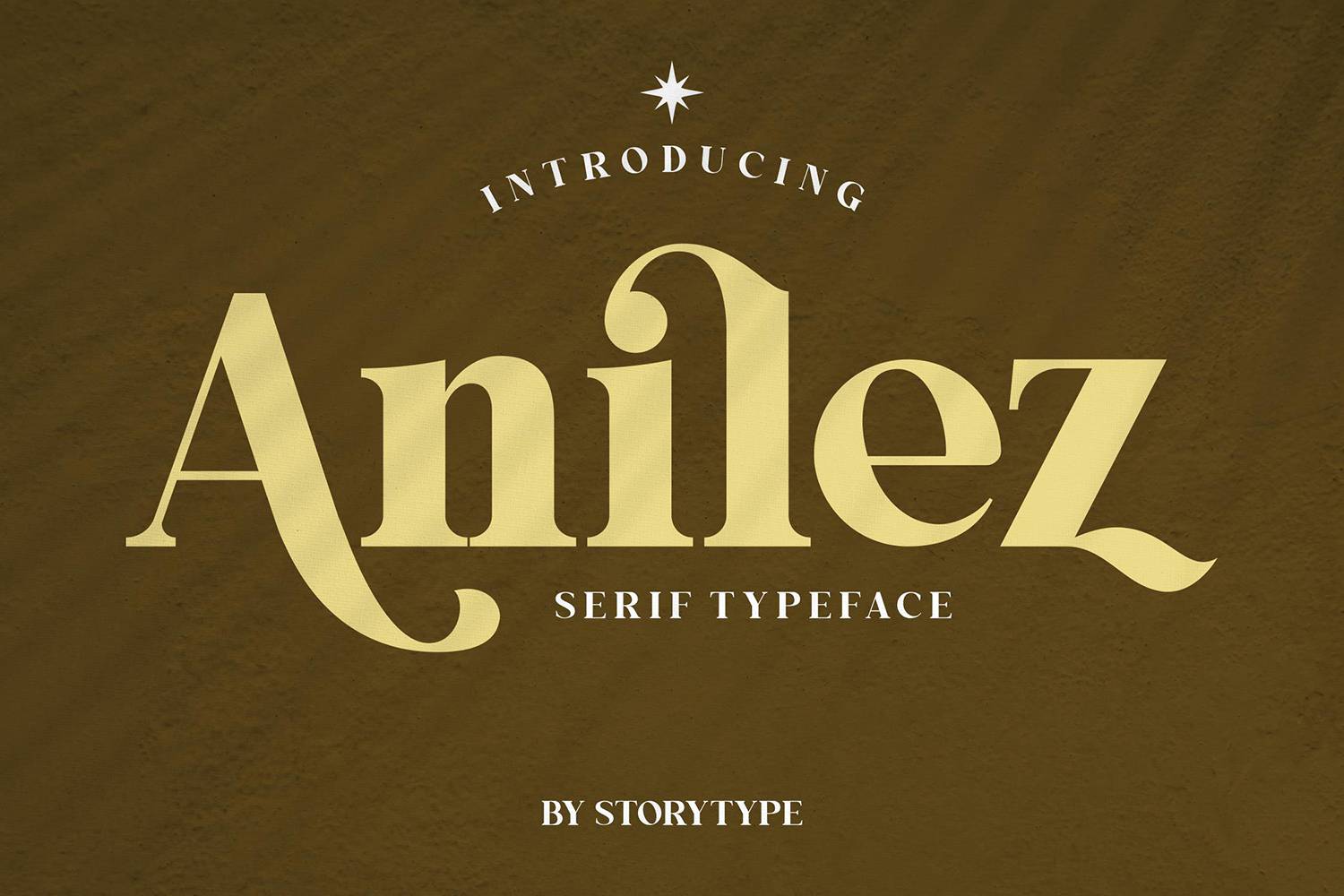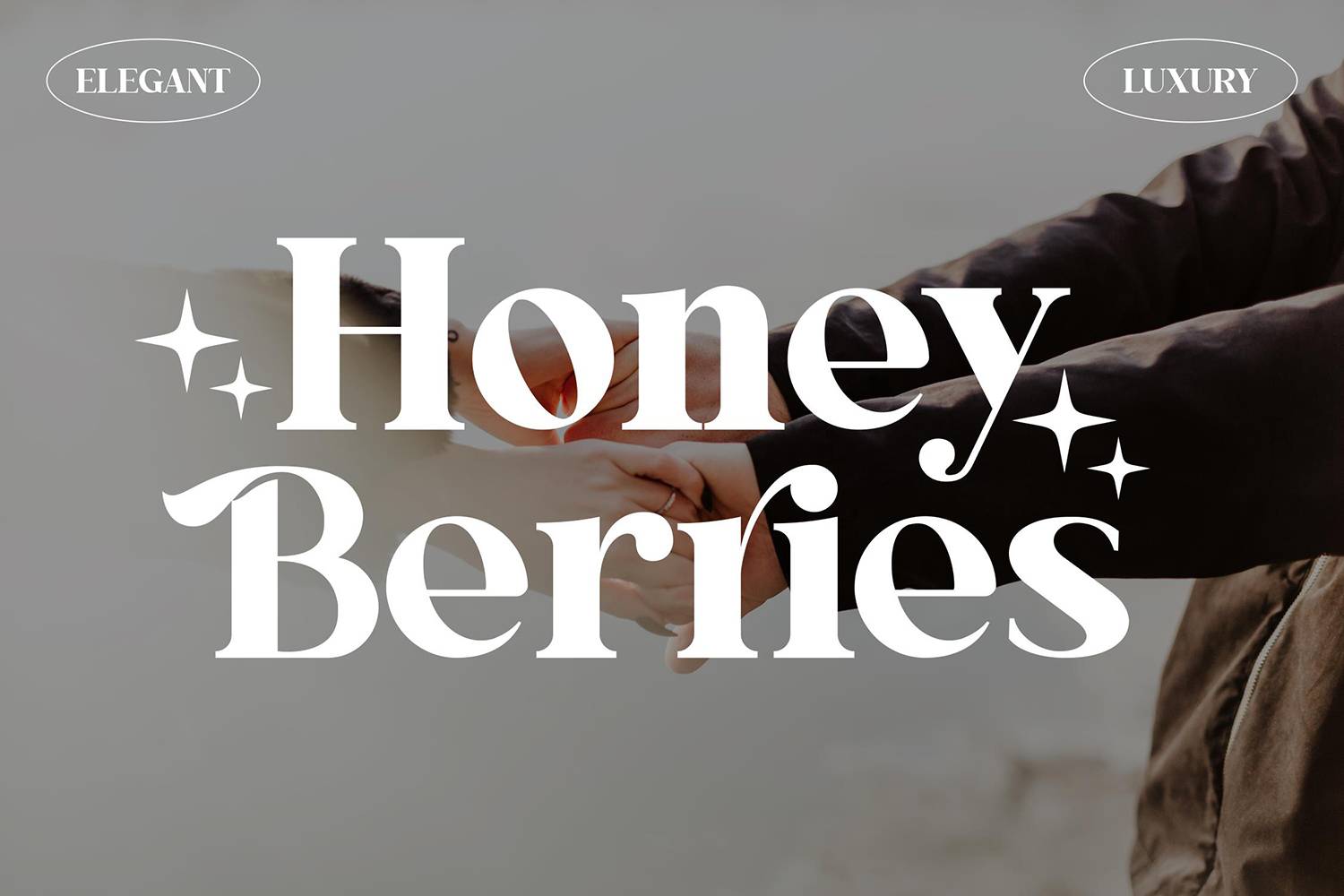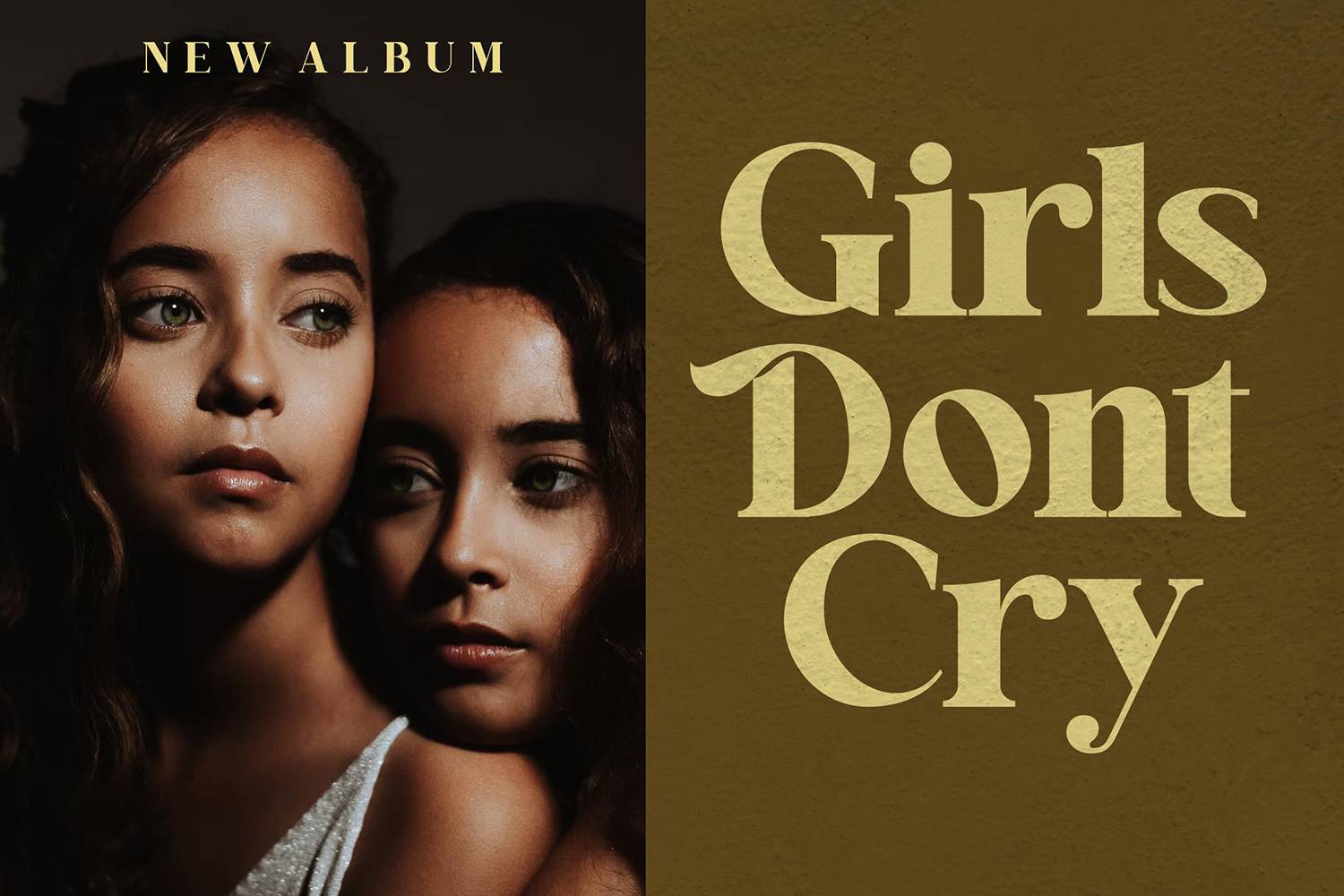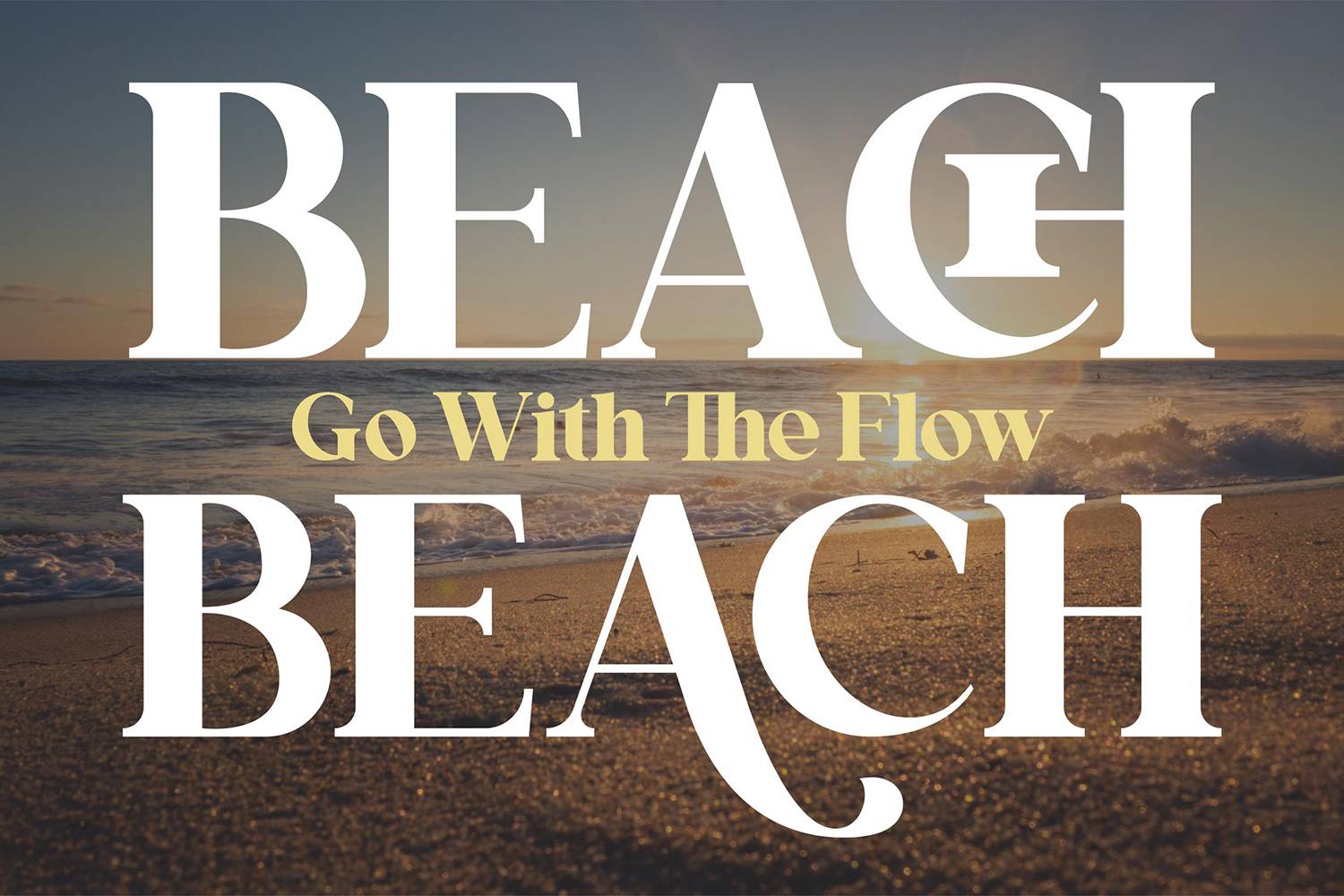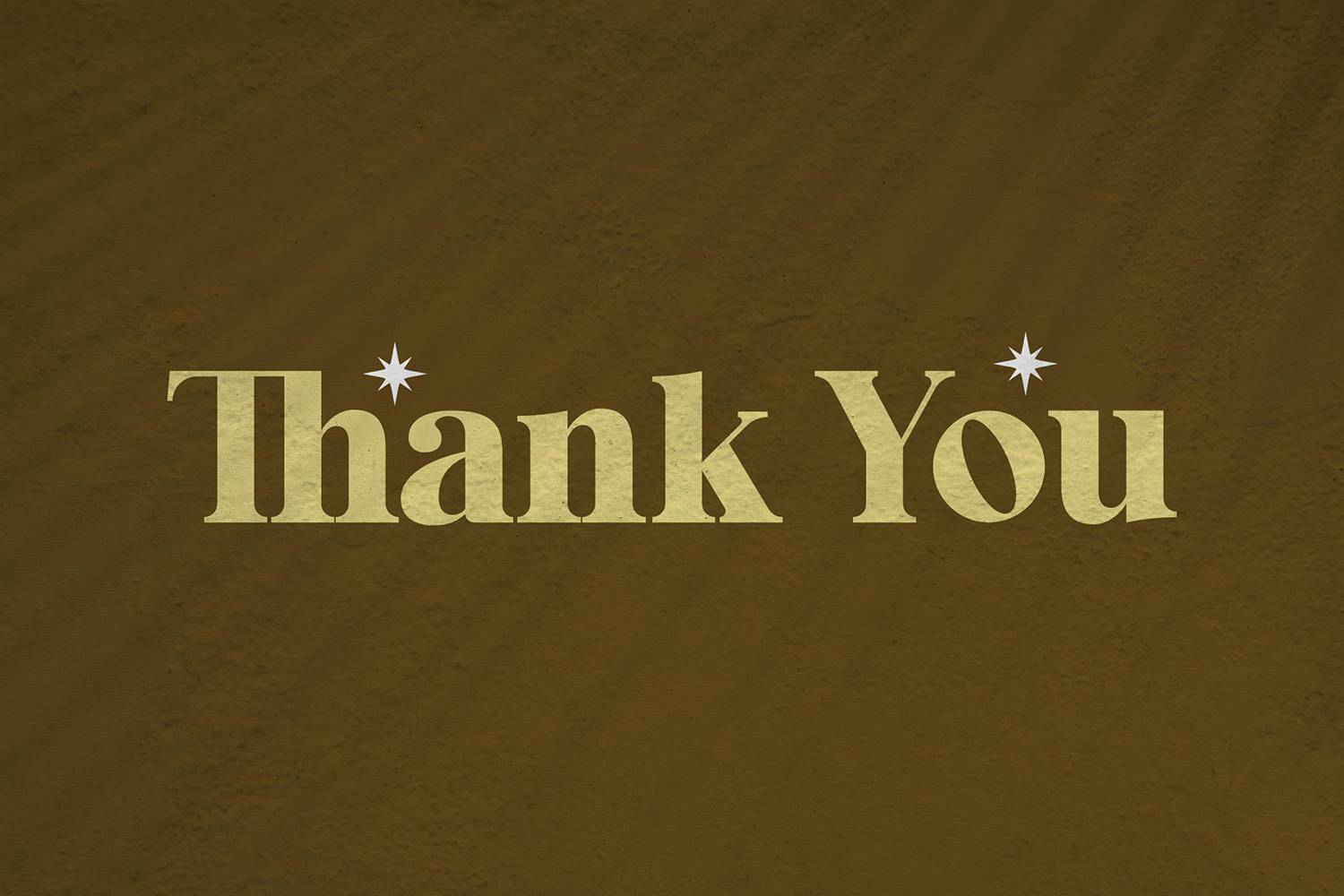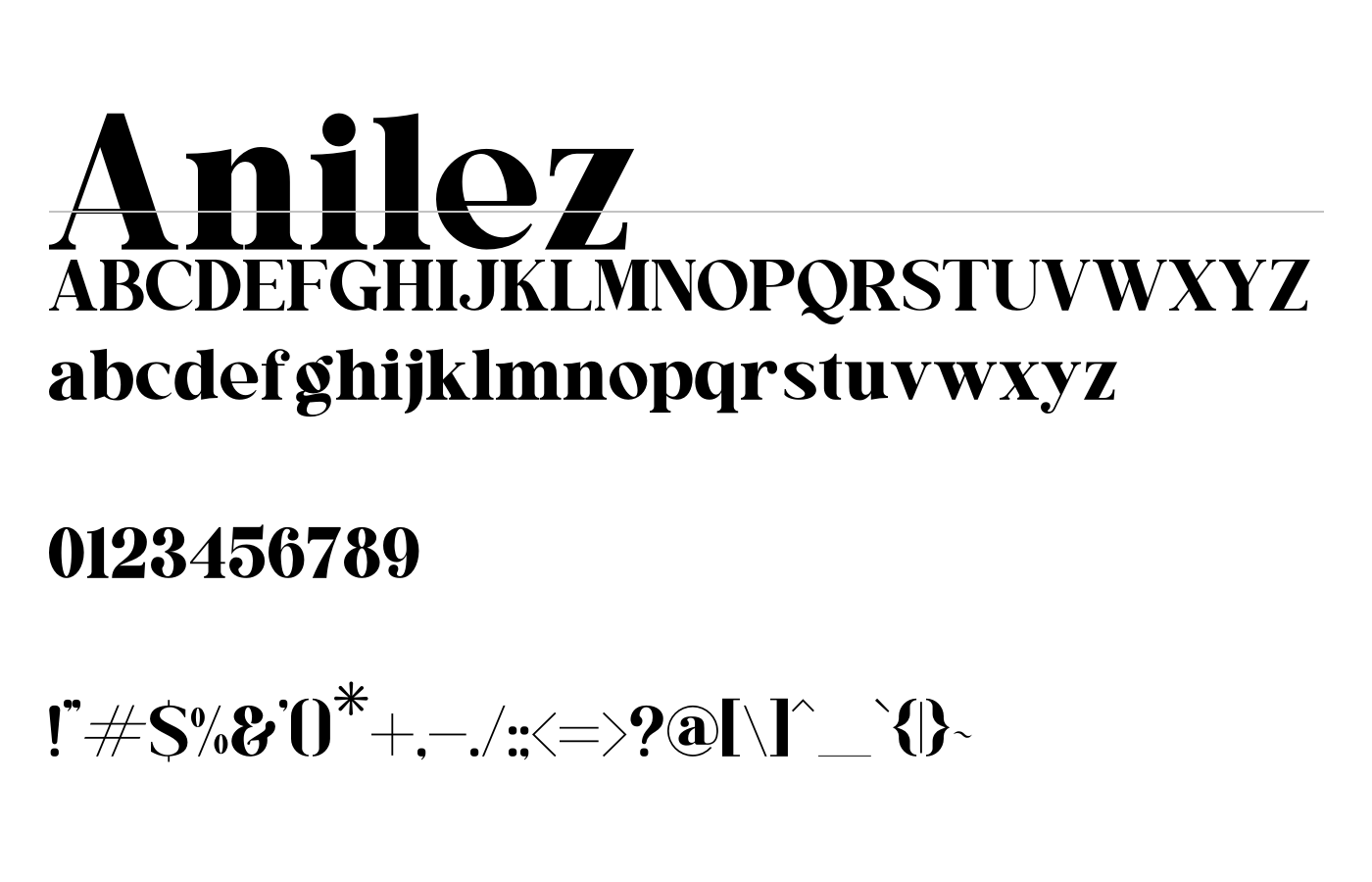
Anilez is a bold, serif typeface with a strong modern Didone influence, featuring high contrast between thick and thin strokes and sharply bracketed serifs. Its elegant, refined letterforms, including distinctive single-story ‘a’ and double-story ‘g’, give it a luxurious and sophisticated feel, ideal for upscale branding, editorial headlines, and fashion-focused designs. This font works beautifully where a dramatic, stylish impression is needed, combining classic elegance with contemporary flair.
Anilez Font
About Anilez Font